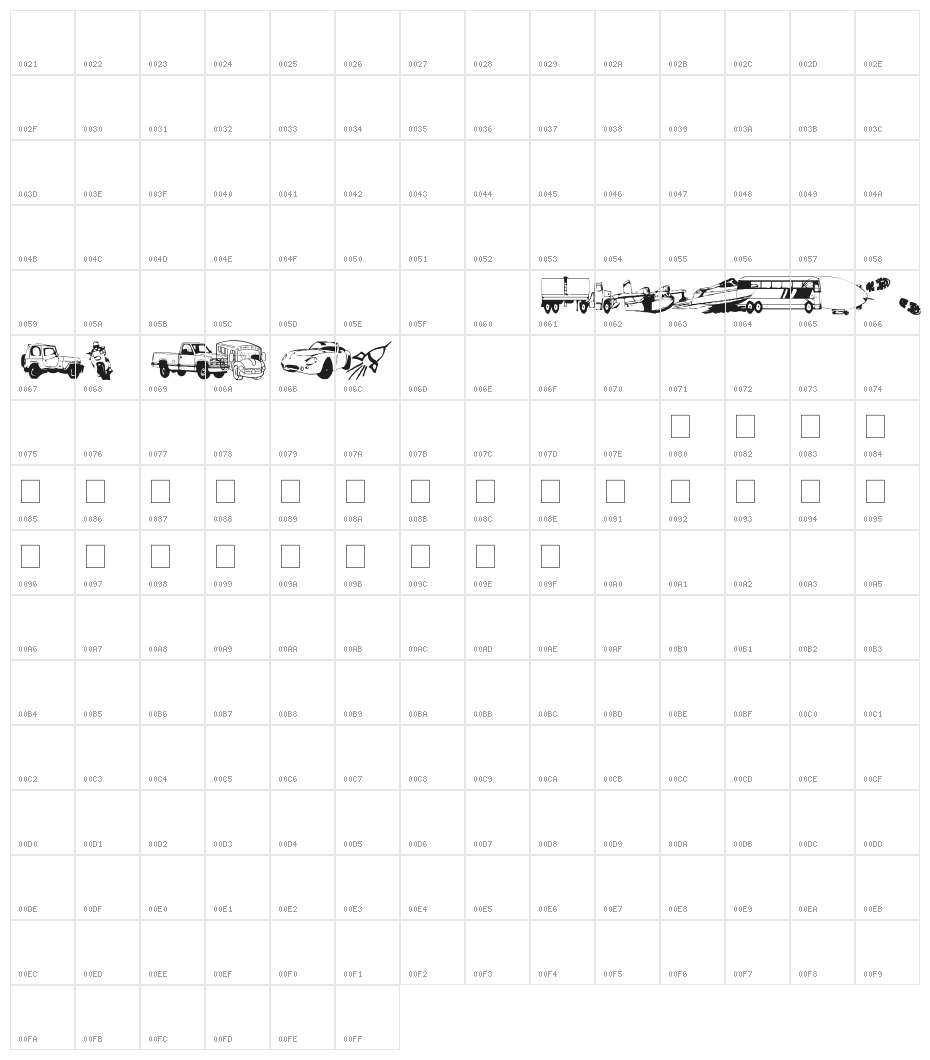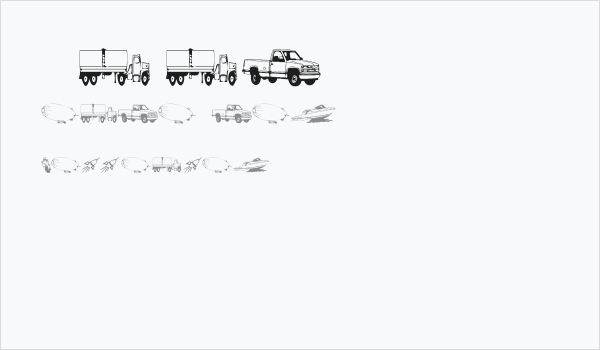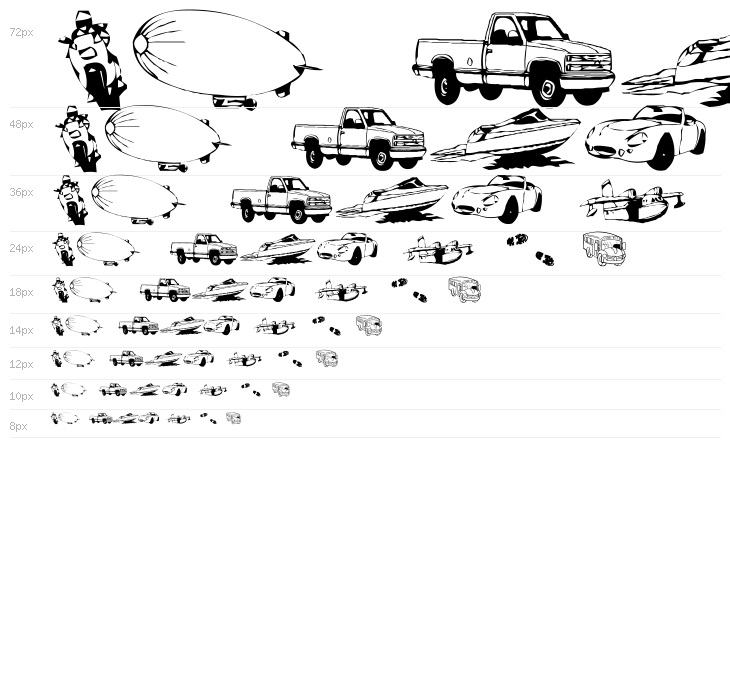
AEZ Transportation 2005 Font
AEZ Transportation 2005 Description
A collection of black and white transportation-themed pictograms, each character representing a different vehicle such as trucks, boats, buses, cars, and rockets. The illustrations are simple, outlined, and cartoon-like, with moderate detail and consistent line weight.
Overall StyleDecorative, Playful
Use CaseIcons, Themed graphics, Decorative headings
Proposed ProjectsEducational materials, children's books, infographics, transportation signage, themed party invitations.